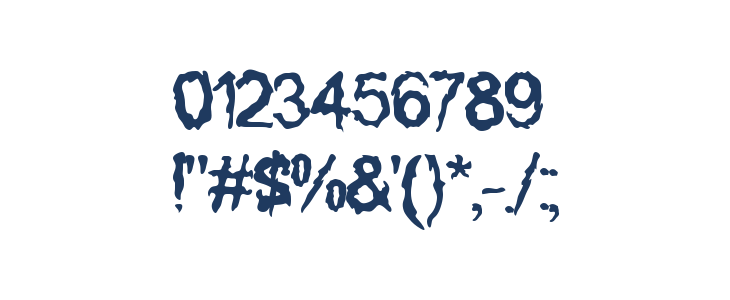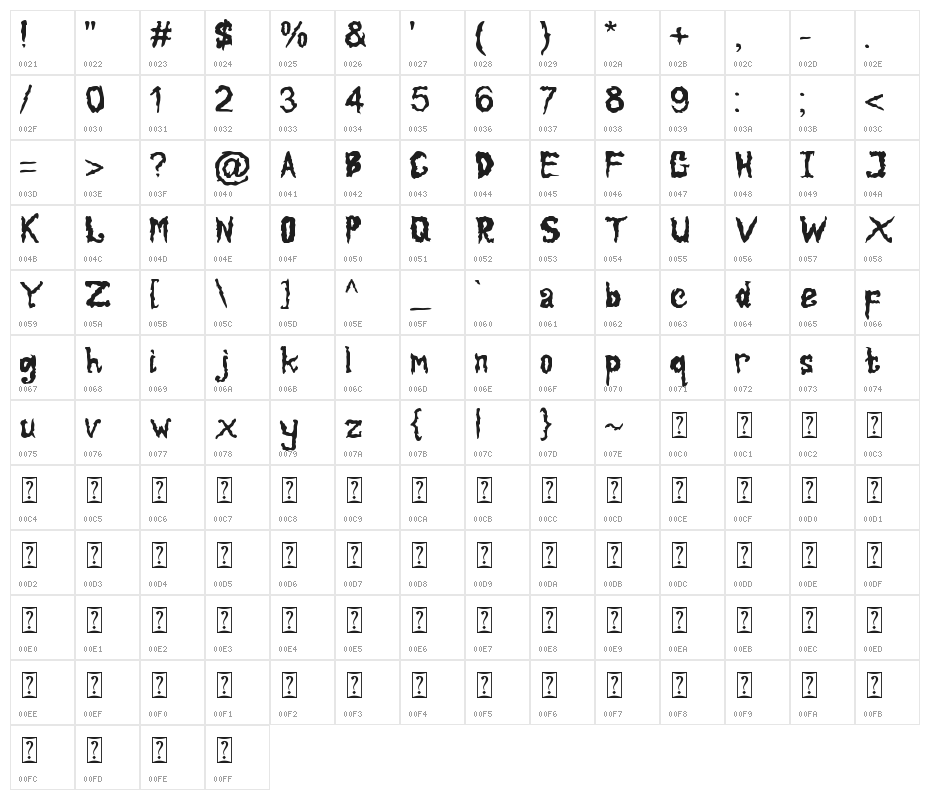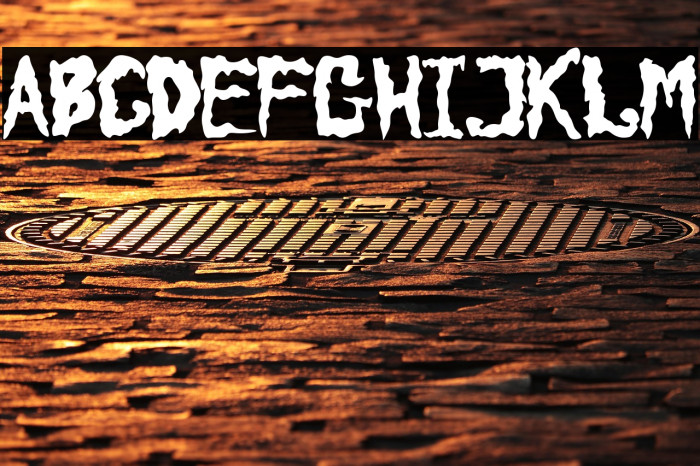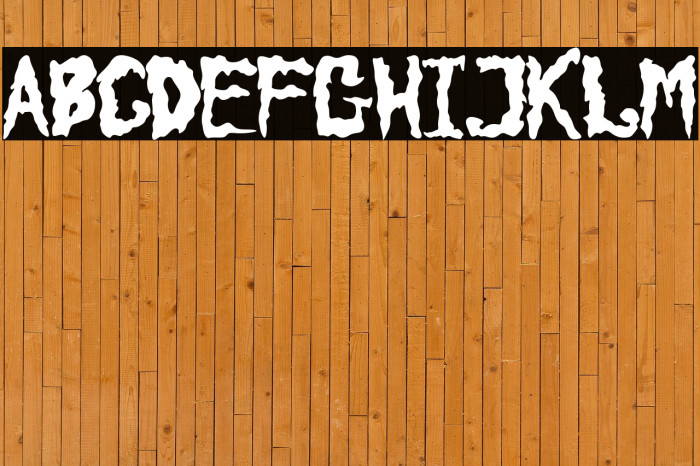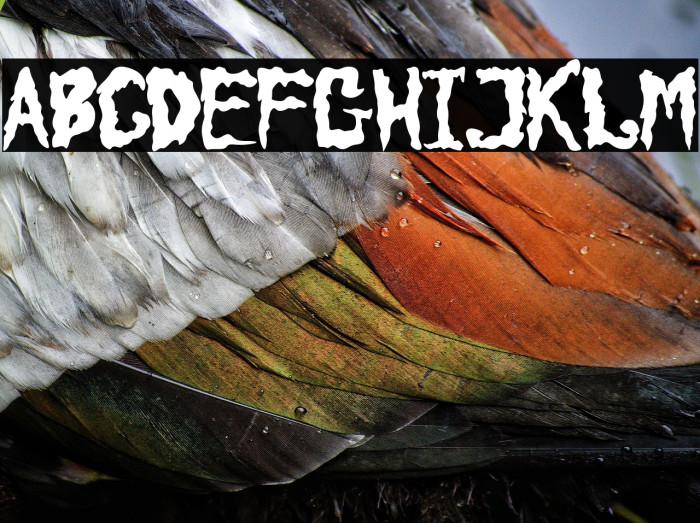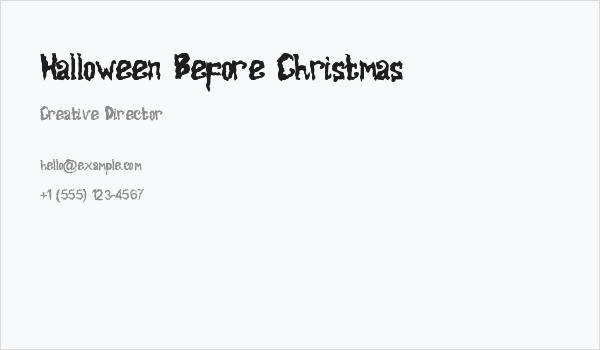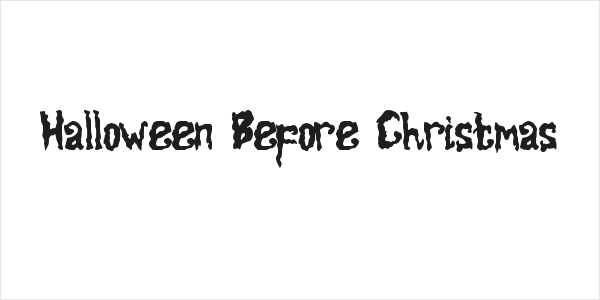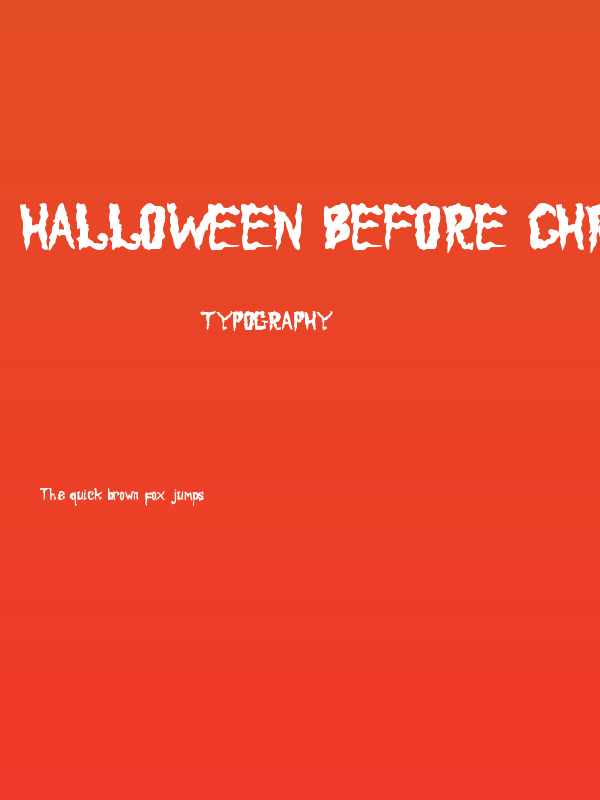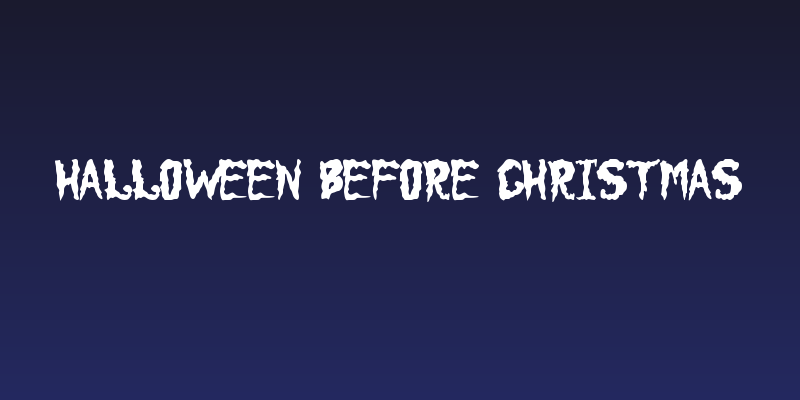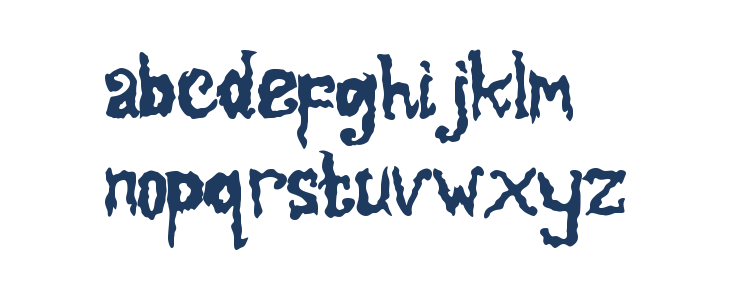
Halloween Before Christmas Font
Halloween Before Christmas Description
This font features a spooky, irregular design that evokes a sense of eerie charm, perfect for Halloween-themed projects. The letters have a jagged, uneven appearance, resembling dripping or melting shapes, which adds to its haunting aesthetic. The uppercase and lowercase letters maintain a consistent style, with exaggerated curves and sharp edges that create a sense of movement and unpredictability. The numbers and special characters follow the same design principles, ensuring a cohesive look across all elements. This font is ideal for creating eye-catching headlines or titles that require a touch of the macabre.
| Use Case | Headlines, Logos, Themed Events |
| Proposed Projects | Ideal for Halloween invitations, horror movie posters, themed event flyers, and spooky merchandise designs. |